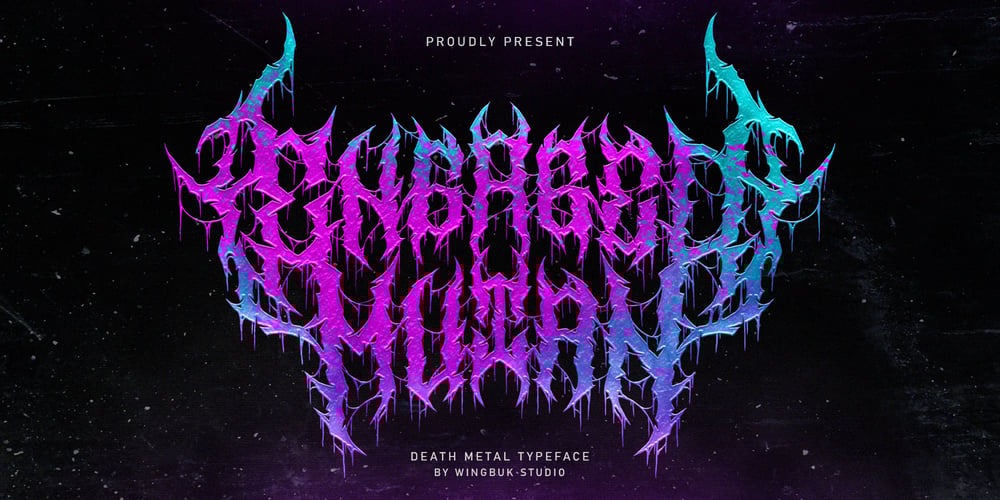
Engaged Mutan Metal Font Family was designed by Adji Shaka and published by WingBuk Studio. Engaged Mutan Metal contains 1 styles and family package options. Engaged Mutan is a special death metal font with a touch of sweet darkness ! Giving you a stunning impression of the ferocity of a metal font that’s very easy to implement. Perfect for metal band logo, metal apparel, merchandise, concert posters, etc.Tutorial how to use : https://youtu.be/tkJ99ozr-l4Recomended Software to use: Corel Draw Adobe Photoshop Adobe Illustrator